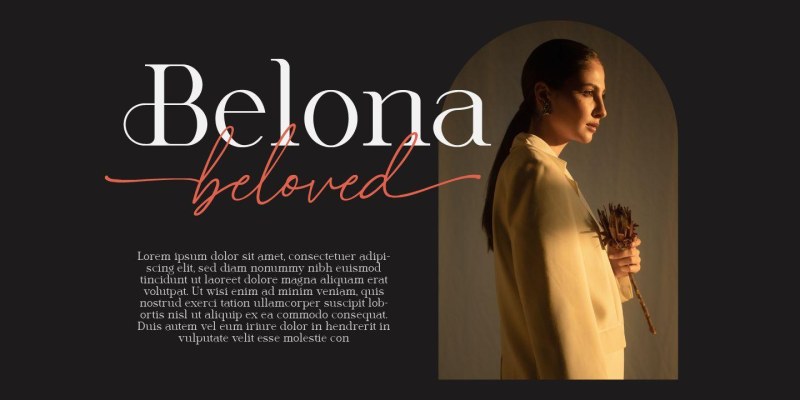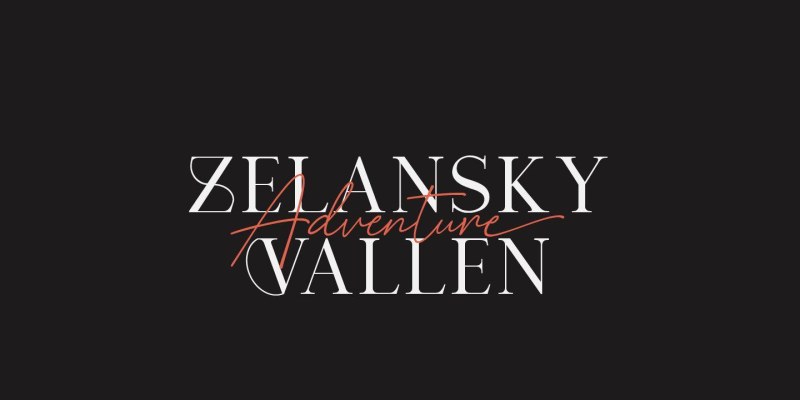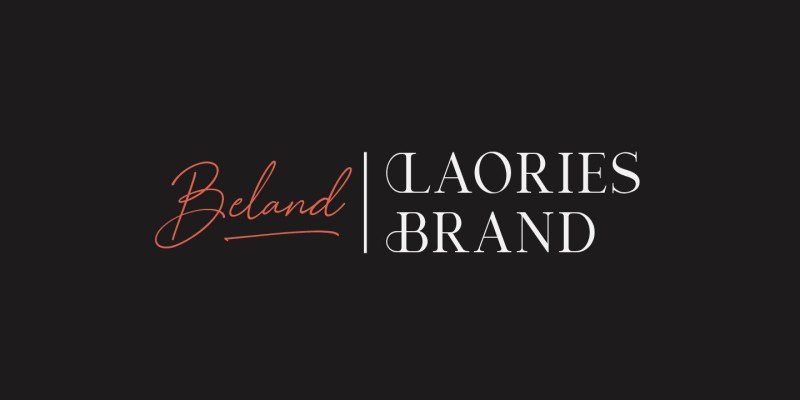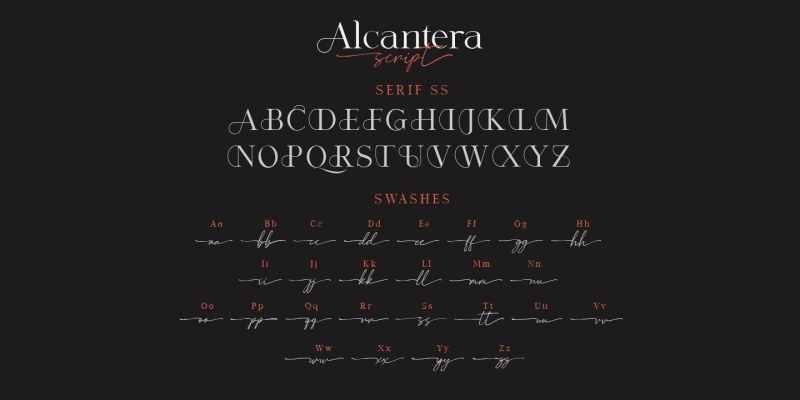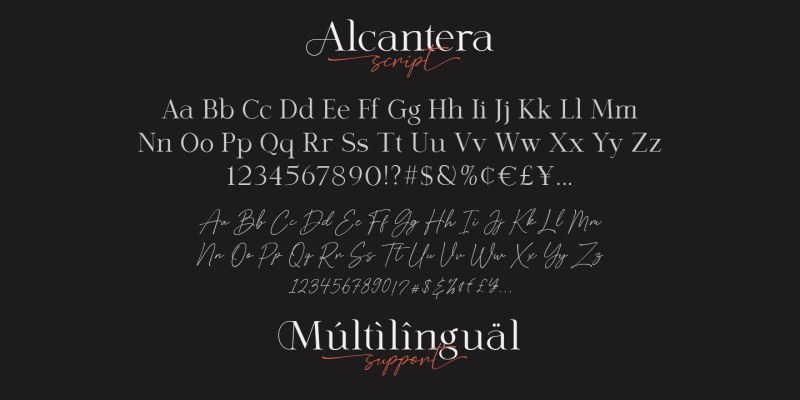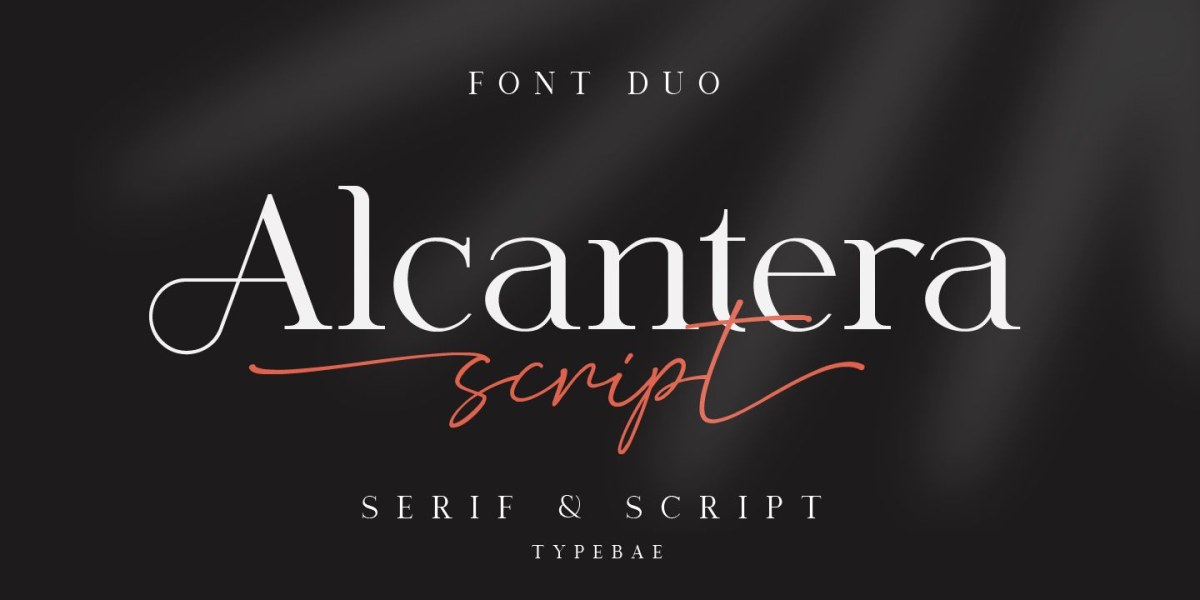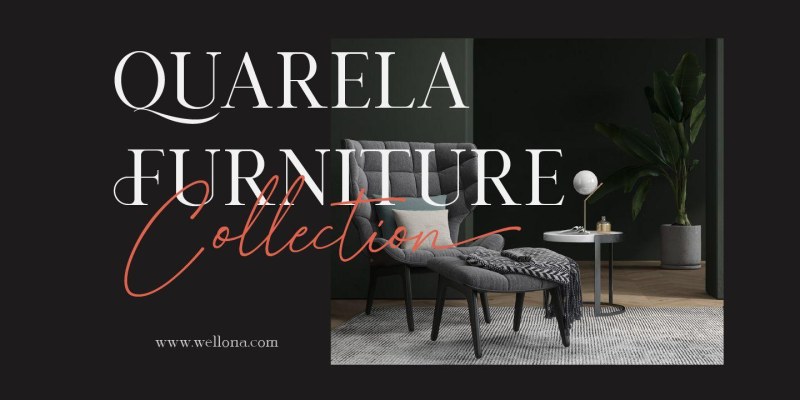
Alcantera Font Duo
Alcantera Font Duo is a stunning pair of fancy script and serif fonts. These typography are designed to contrast and complement each other with elegant beauty and contemporary style. Use Alcantera Font Duo to create beautiful wedding invitations, beautiful stationery art, great social media posts, cute greeting cards and much more. To use the stylistic alternate, beginning and ending swashes you don’t need to use software that supports OpenType, because we have made it separately so it’s very easy to use.
Alcantera Font Duo is a Serif Fonts font that brings a professional and versatile look to your projects. Alcantera Font Duo is a stunning pair of fancy script and serif fonts.